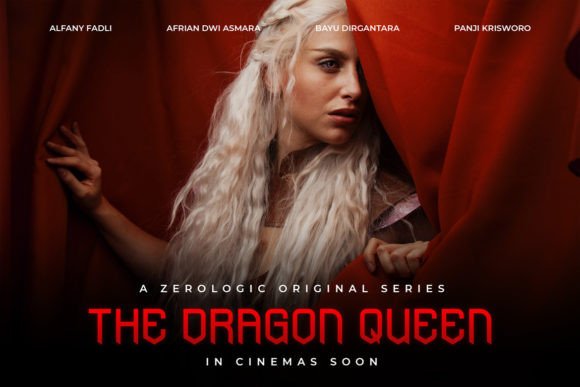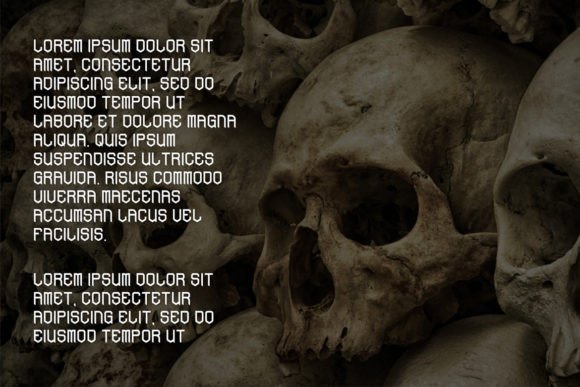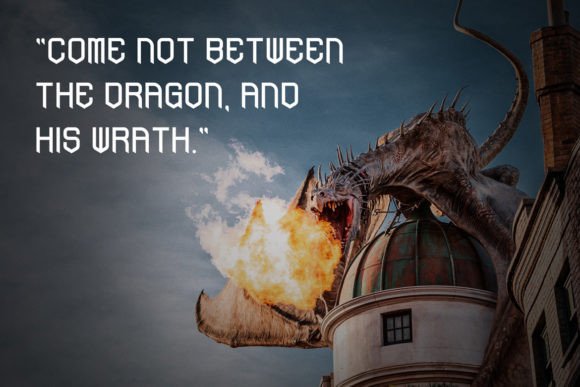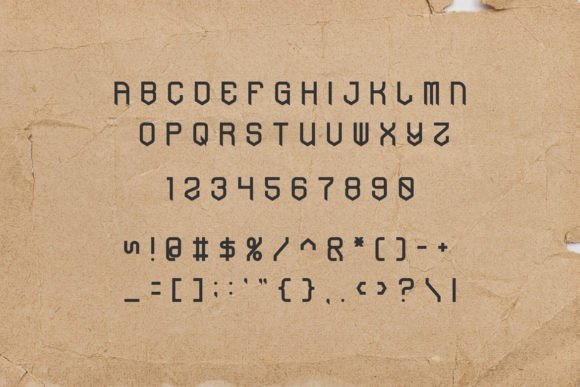
Brock Roldan Font: Elevate Your Designs with a Modern Display Font
In the world of typography, a font can make or break a design. For designers and crafters looking to add a touch of modernity and sophistication to their work, the Brock Roldan font is an excellent choice. This modern display font is designed with an original touch, making it perfect for a wide range of design needs.
What is Brock Roldan Font?
Brock Roldan is a modern display font that boasts a strong and sharp appearance, making it ideal for titles, typography, posters, magazines, brochures, packaging, websites, and more. Its unique design ensures that your designs stand out from the crowd, adding a touch of elegance and refinement.
Key Features of Brock Roldan Font
- Modern Design: Brock Roldan font features a modern design that is perfect for designers looking to add a contemporary touch to their work.
- Strong and Sharp: The font’s strong and sharp appearance makes it ideal for titles, headings, and other design elements that require a bold statement.
- Original Touch: The font’s original design ensures that your work stands out from the crowd, adding a unique touch to your designs.
- Versatile: Brock Roldan font is perfect for a wide range of design needs, including posters, magazines, brochures, packaging, websites, and more.
Why Choose Brock Roldan Font?
There are several reasons why designers and crafters should consider using the Brock Roldan font for their design needs. Here are a few:
- Easy to Read: Despite its strong and sharp appearance, the Brock Roldan font is easy to read, making it perfect for body text and other design elements.
- Highly Versatile: The font’s versatility ensures that it can be used for a wide range of design needs, from print materials to digital applications.
- Unique Design: The font’s unique design ensures that your work stands out from the crowd, adding a touch of elegance and refinement.
How to Use Brock Roldan Font
Using the Brock Roldan font is easy. Here are a few tips to get you started:
- Pair it with Other Fonts: Brock Roldan font pairs well with other fonts, making it easy to create visually appealing designs.
- Experiment with Different Sizes: The font’s strong and sharp appearance makes it perfect for use at different sizes, from large headings to smaller body text.
- Use it for Titles and Headings: The font’s bold appearance makes it perfect for titles and headings, adding a touch of elegance and refinement to your designs.
Design Applications for Brock Roldan Font
Brock Roldan font is perfect for a wide range of design applications, including:
- Print Materials: The font is perfect for print materials such as posters, magazines, brochures, and packaging.
- Digital Applications: The font is also perfect for digital applications such as websites, social media graphics, and more.
- Branding: The font’s unique design makes it perfect for branding applications, adding a touch of elegance and refinement to your brand’s identity.
In conclusion, the Brock Roldan font is an excellent choice for designers and crafters looking to add a touch of modernity and sophistication to their work. Its strong and sharp appearance, combined with its original design, makes it perfect for a wide range of design needs. Whether you’re working on print materials, digital applications, or branding, the Brock Roldan font is sure to elevate your designs and add a touch of elegance and refinement.